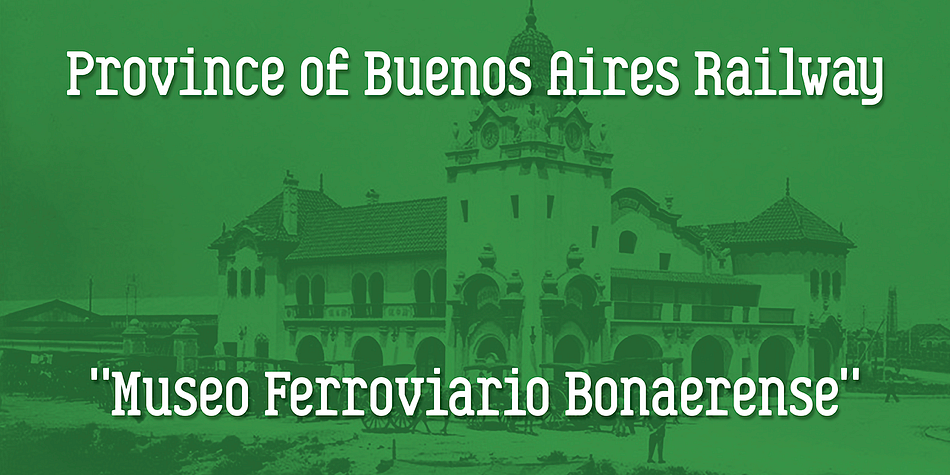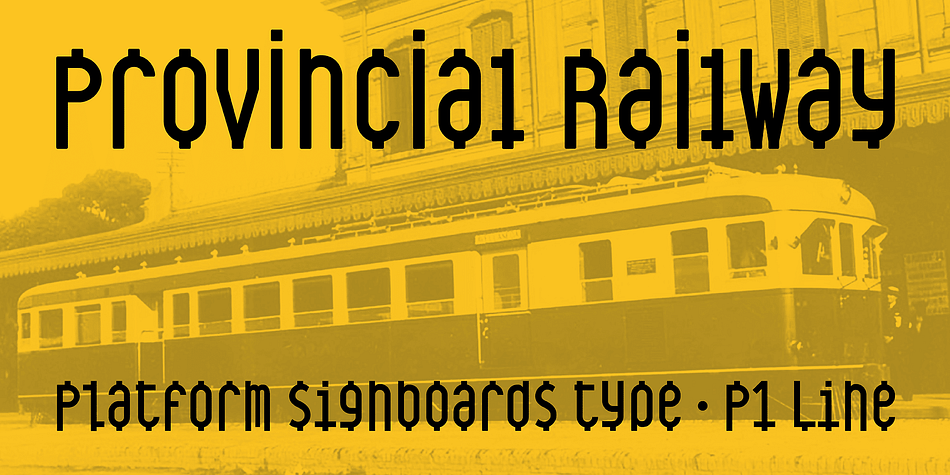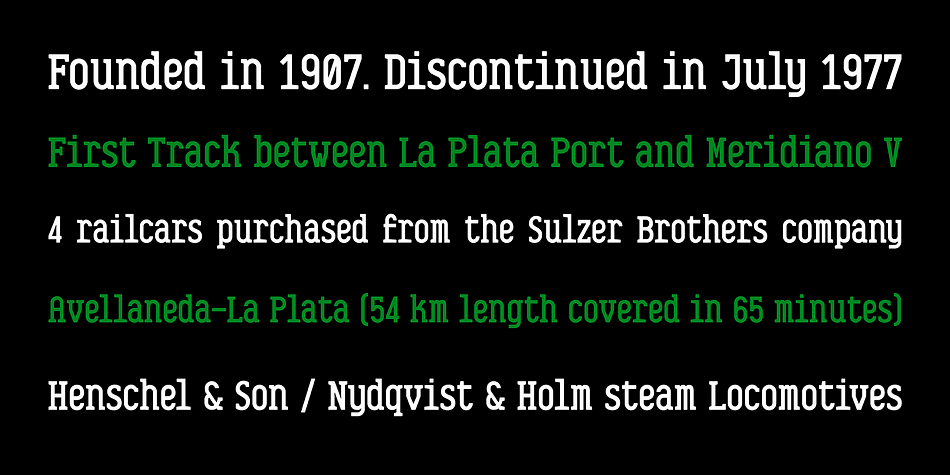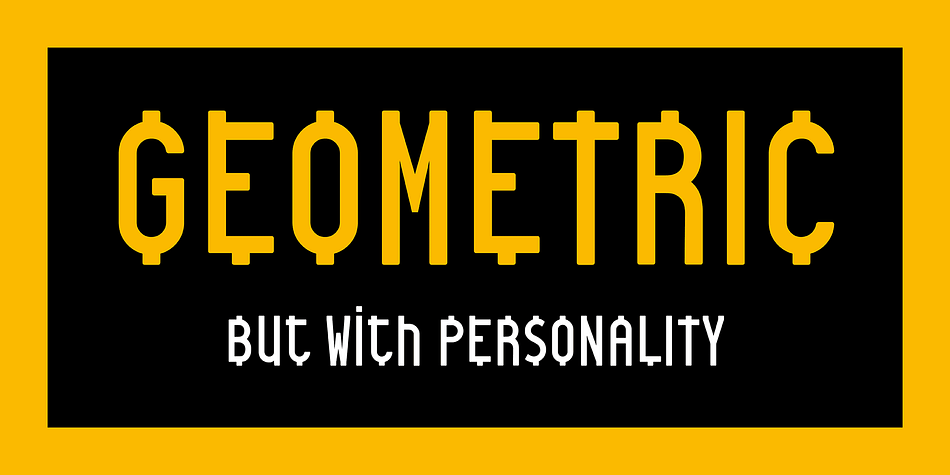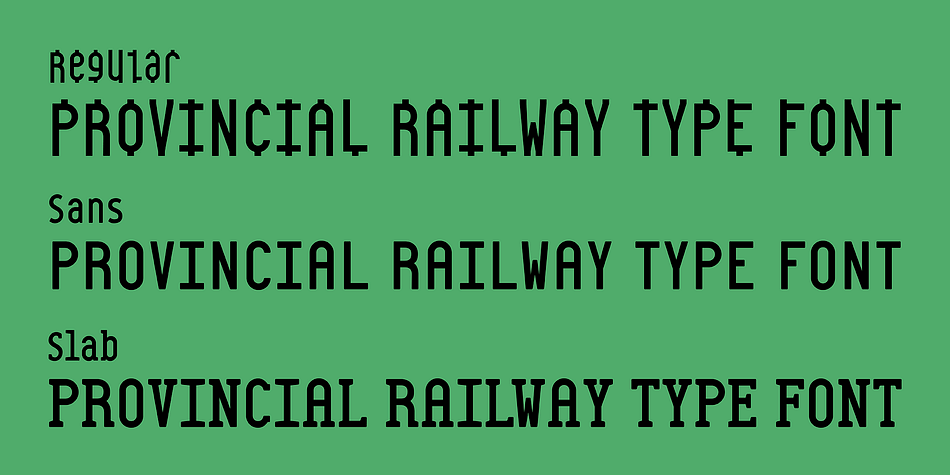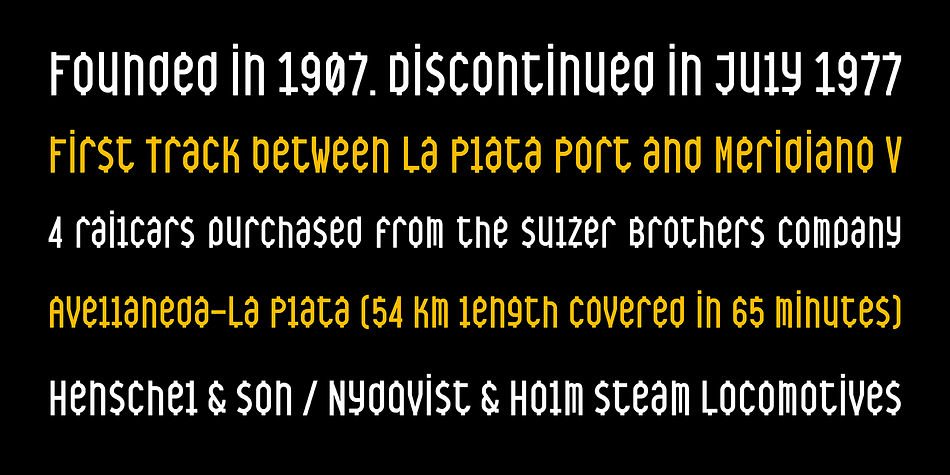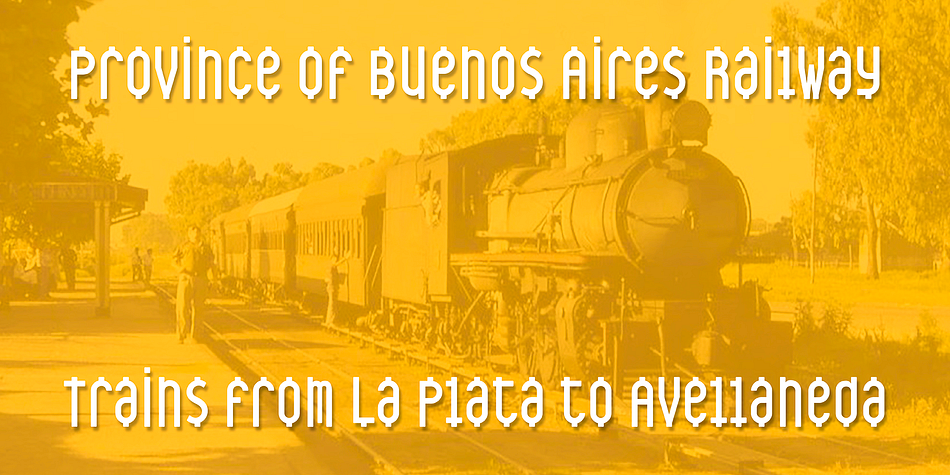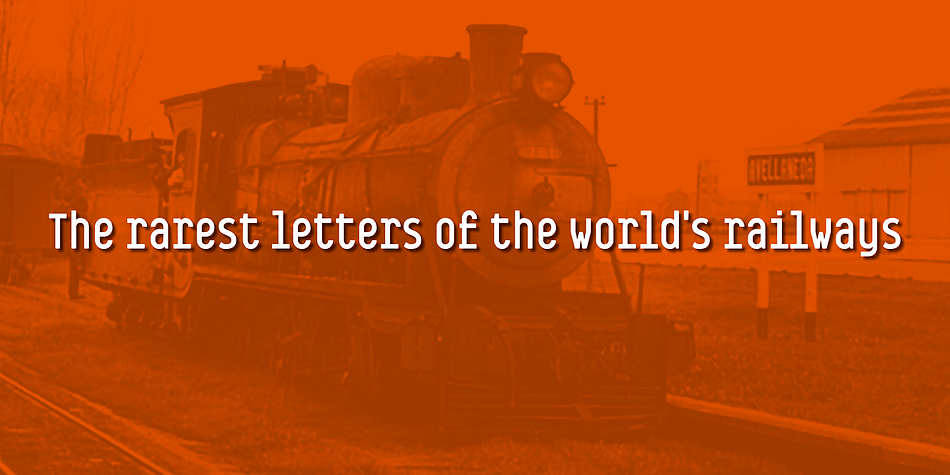
Provincial Railway
Provincial Railway is a display, sans serif and slab serif font family. This typeface has three styles and was published by Fabio Ares.
Provincial Railway is the first product of argentine typographic archeology project called “Tipografía Histórica Ferroviaria” (Fabio Ares & Octavio Osores, since 2012). Is about the signboards of the stations of the P1 line of the Provincial Railway of Buenos Aires (1907-1977).
The letter of this signboards can be described as display type, with a tall box and a constructivist style, with elementary geometric shapes and without line modulation. Although without a doubt, its differential feature is provided by the rectangular shapes that it has towards the ascending and descending lines, which in some cases coincide with the stems, showing a curious rhythm in the composition of the text line.